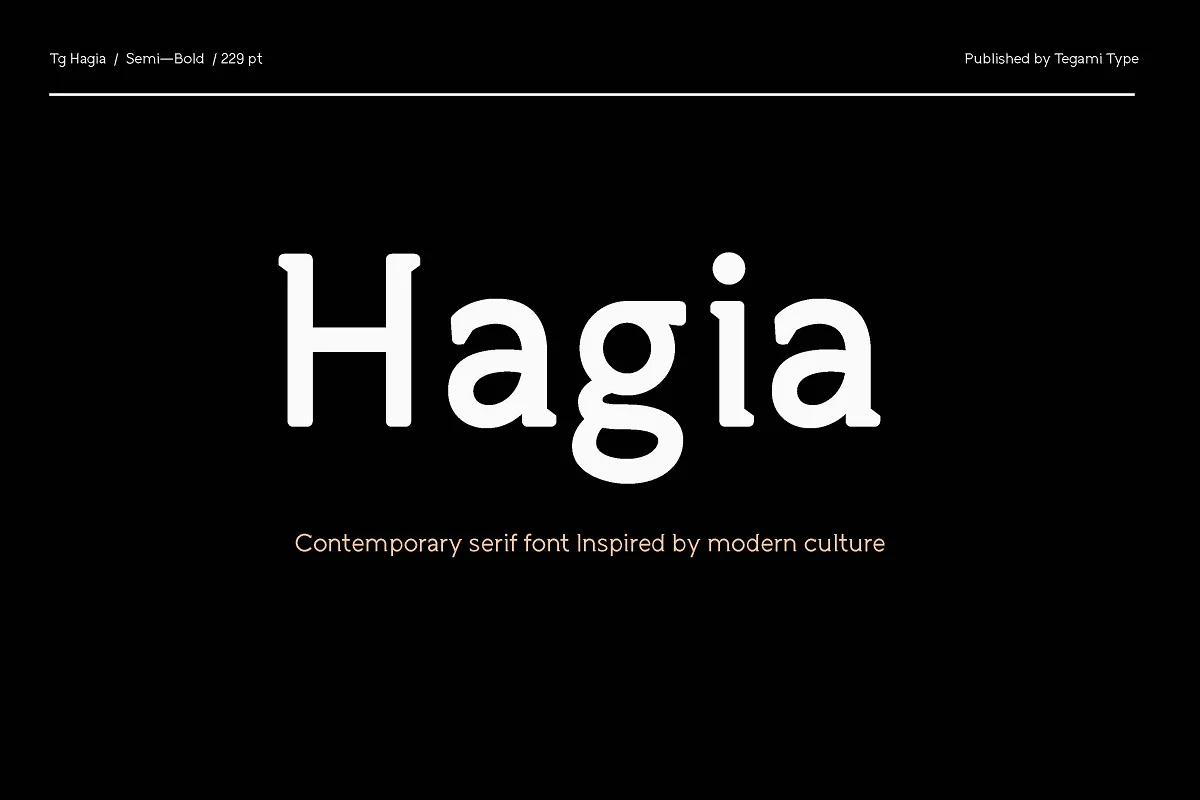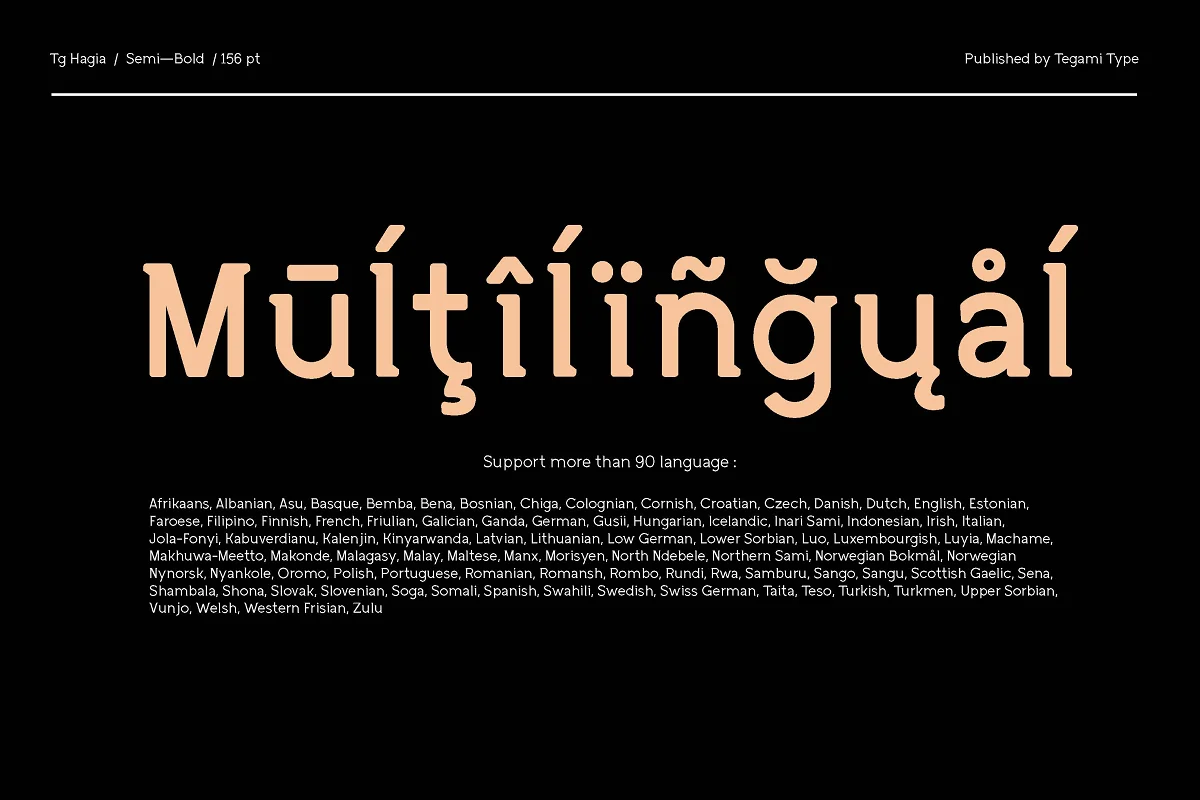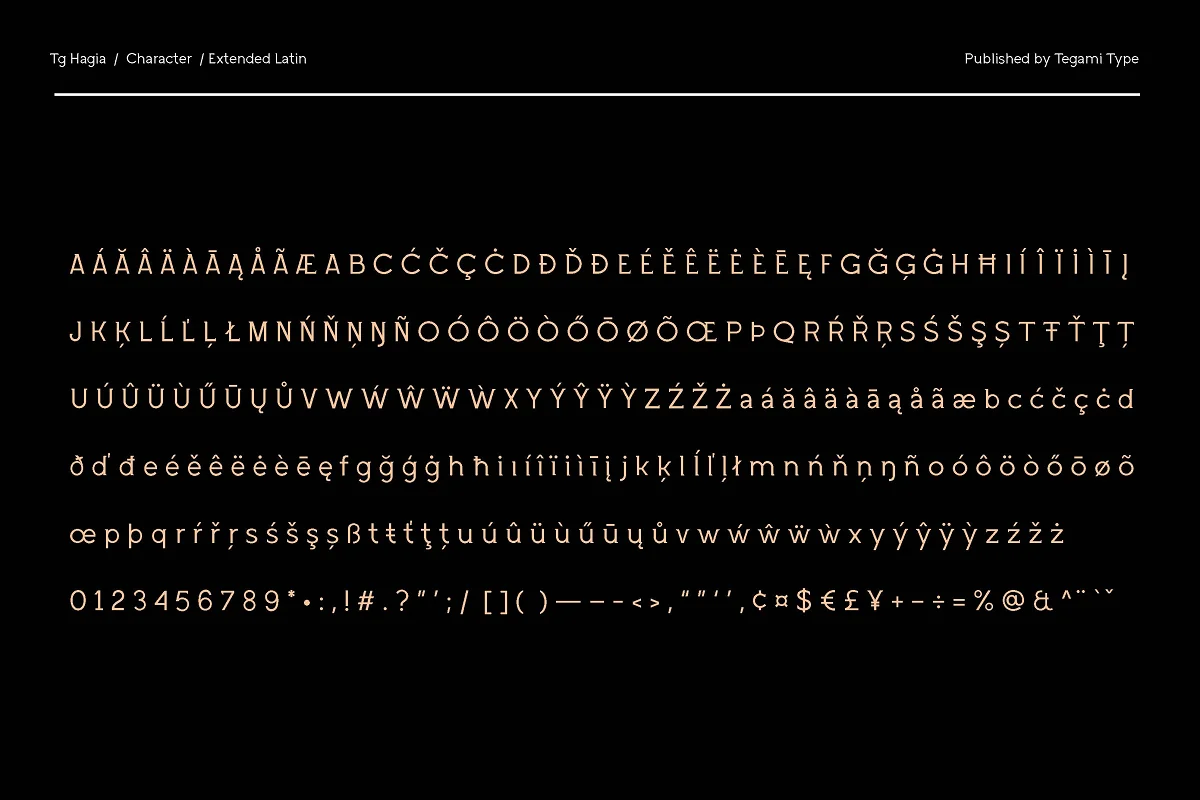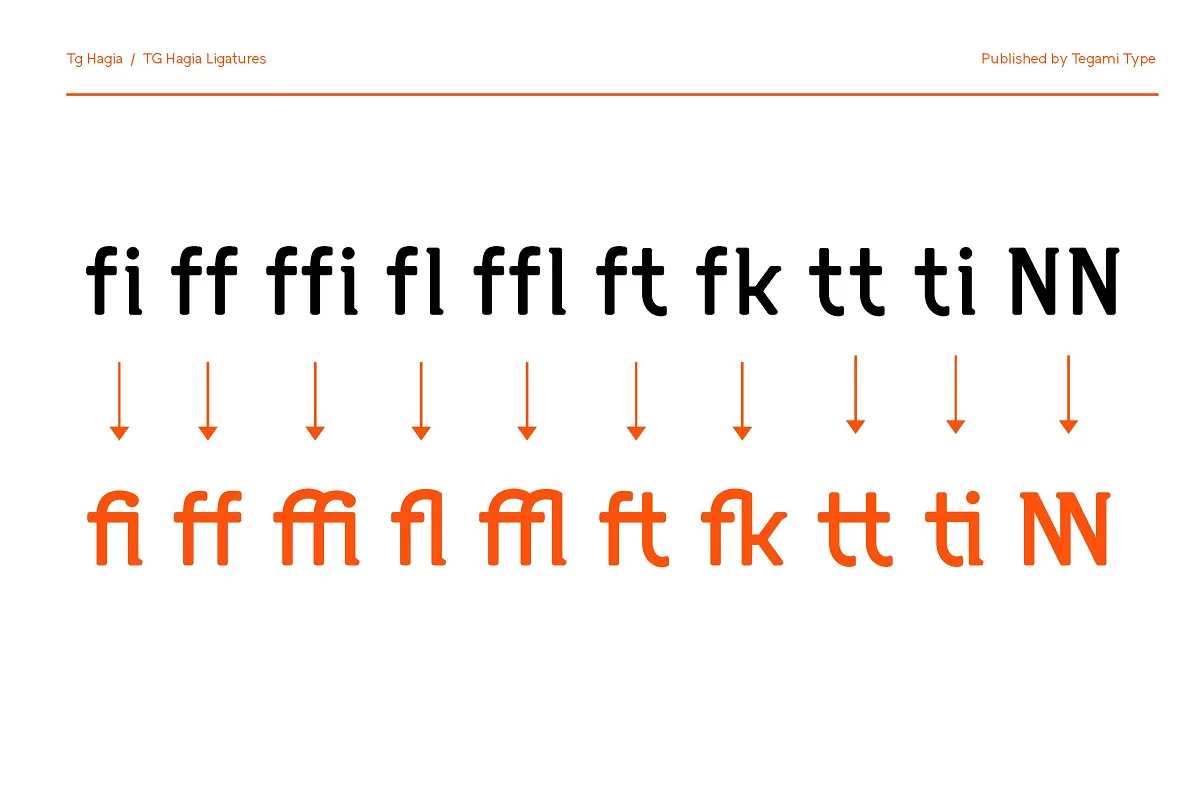
About the TG Hagia Font
TG Hagia Font is contemporary serif font inspired by Modern Culture. This font is highly recommended for use as display and body text. Tg Hagia is available in three widths namely regular, semibold, and bold.